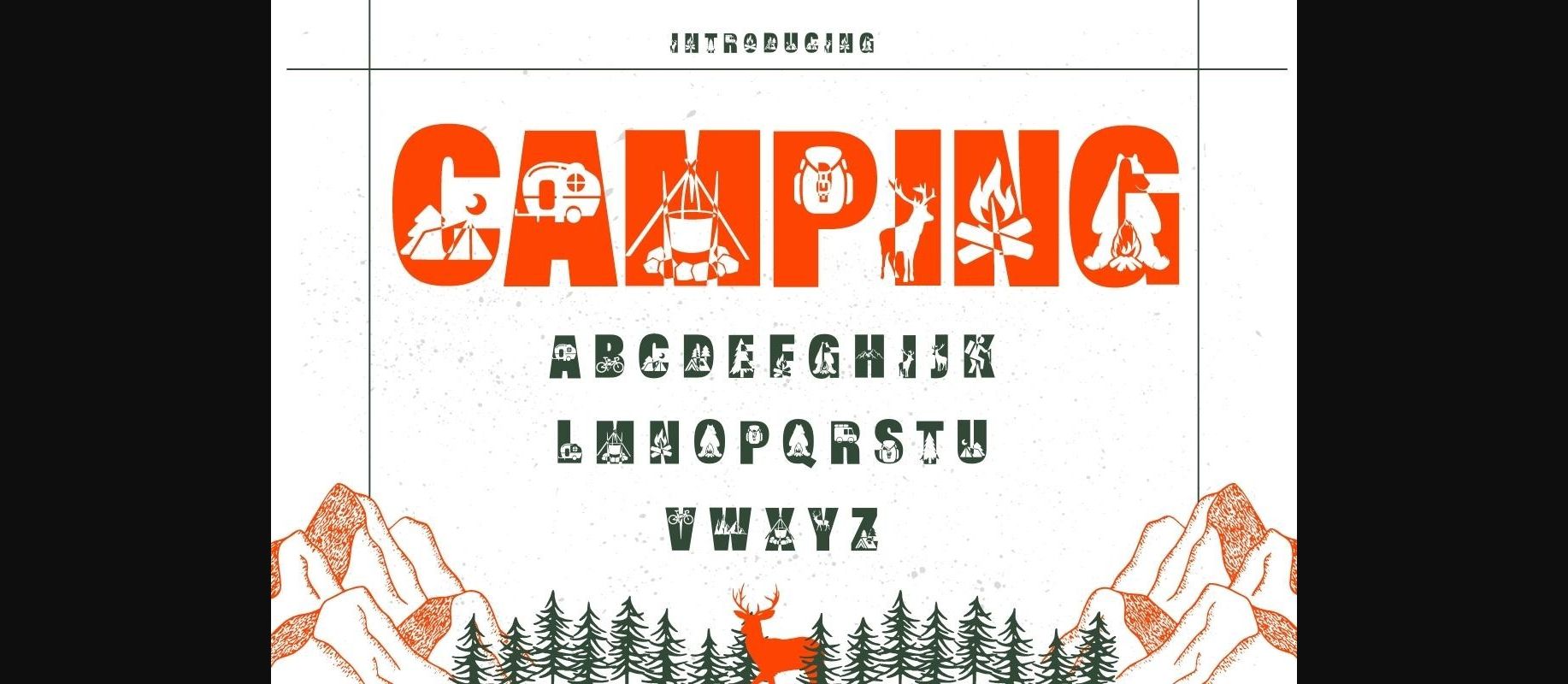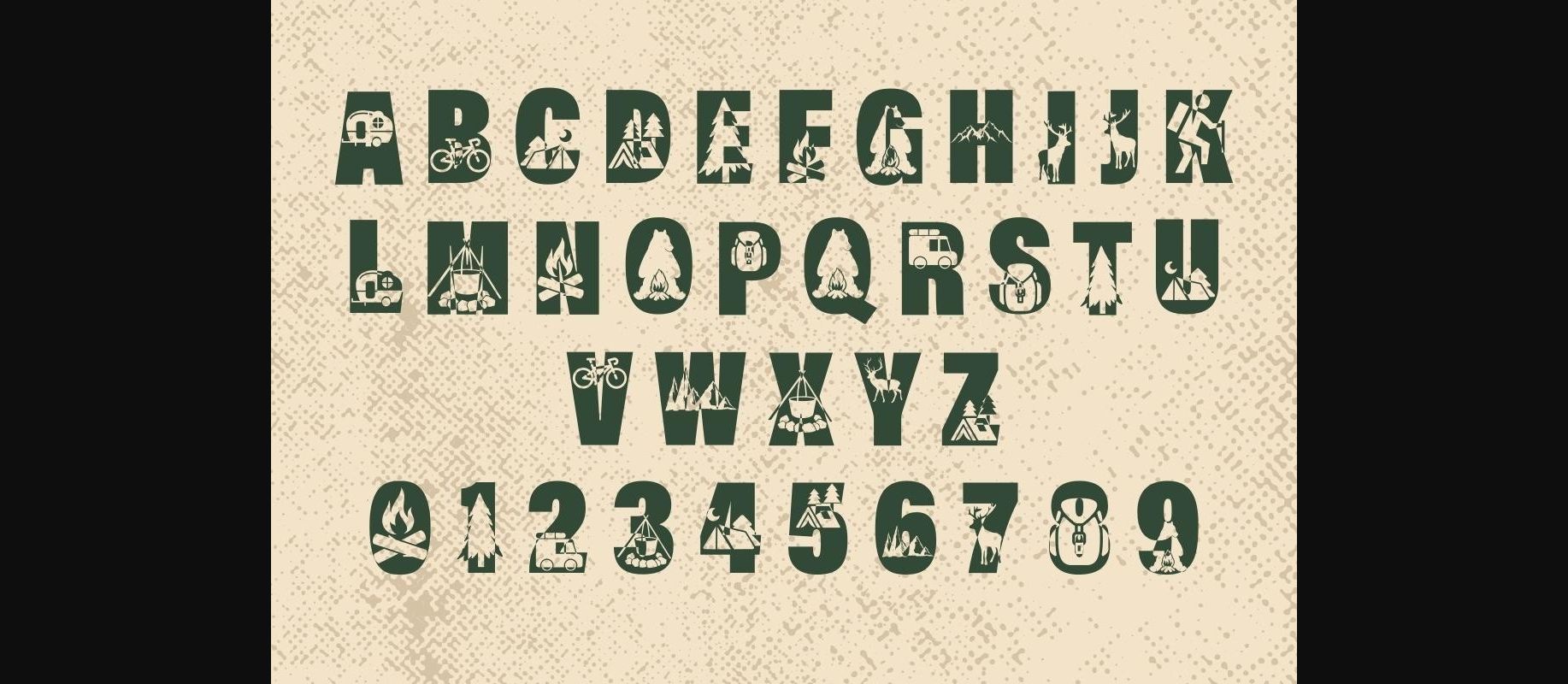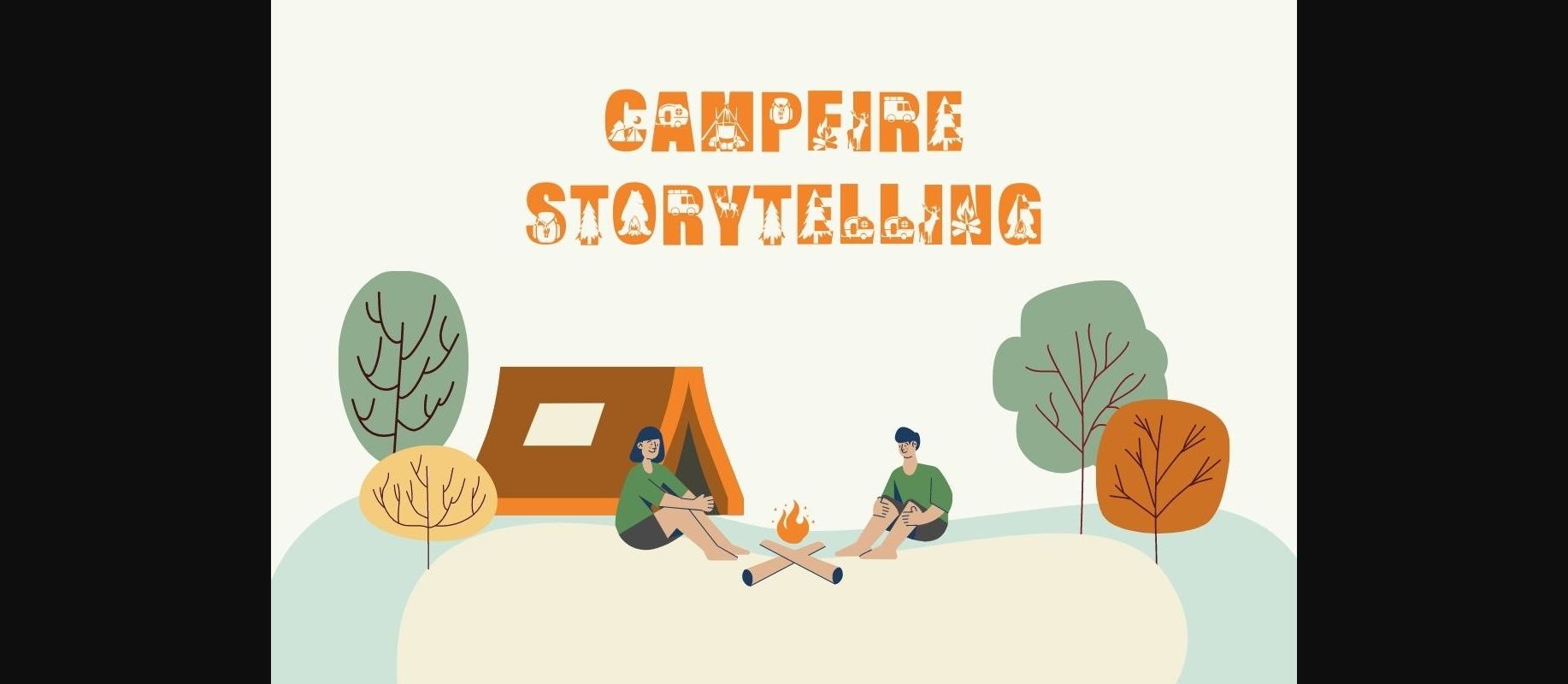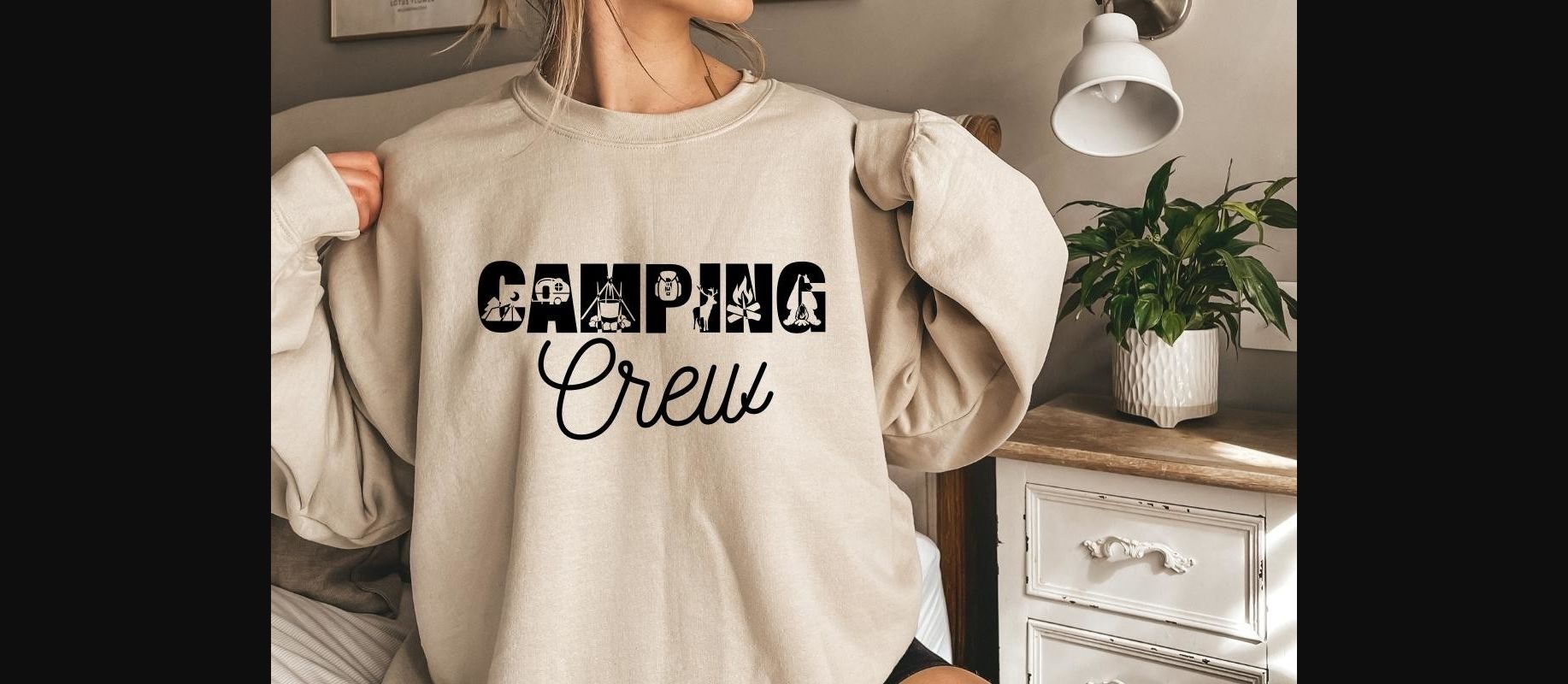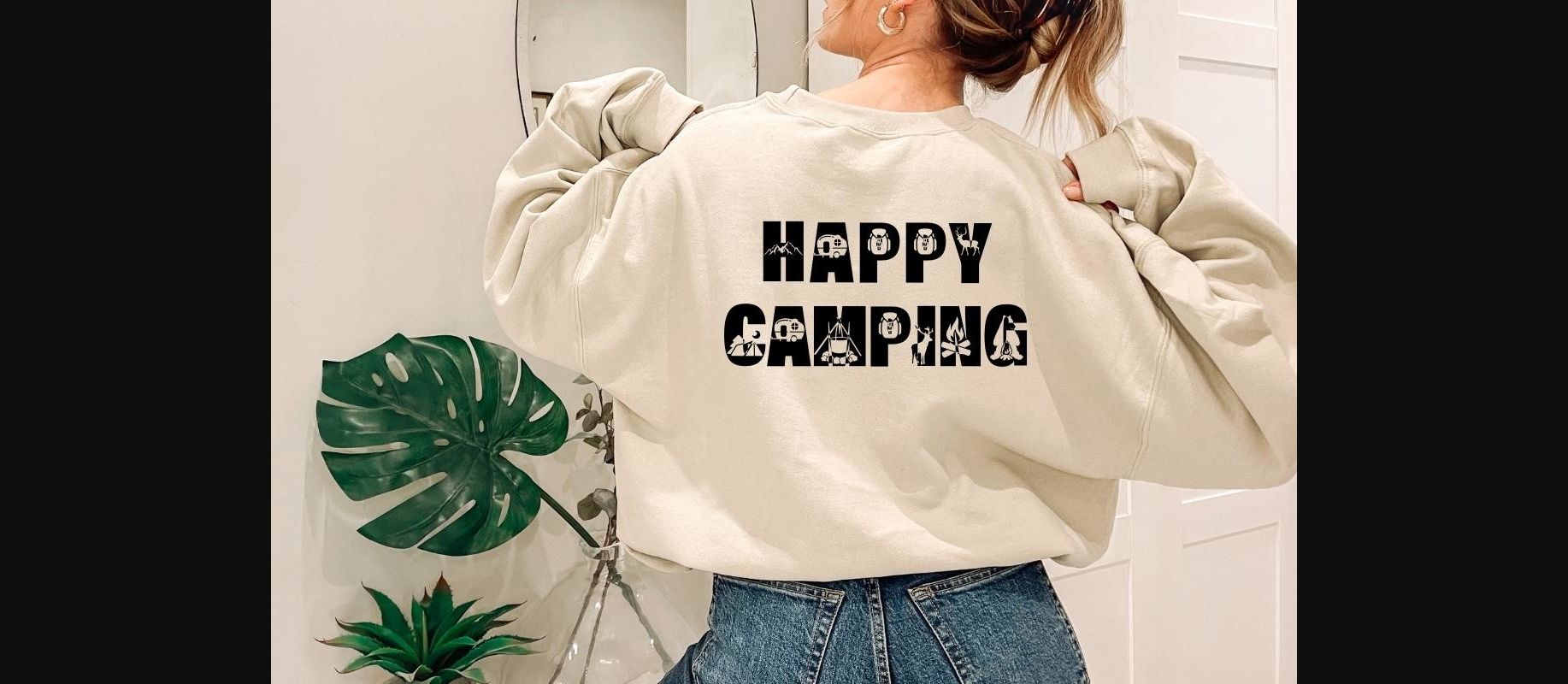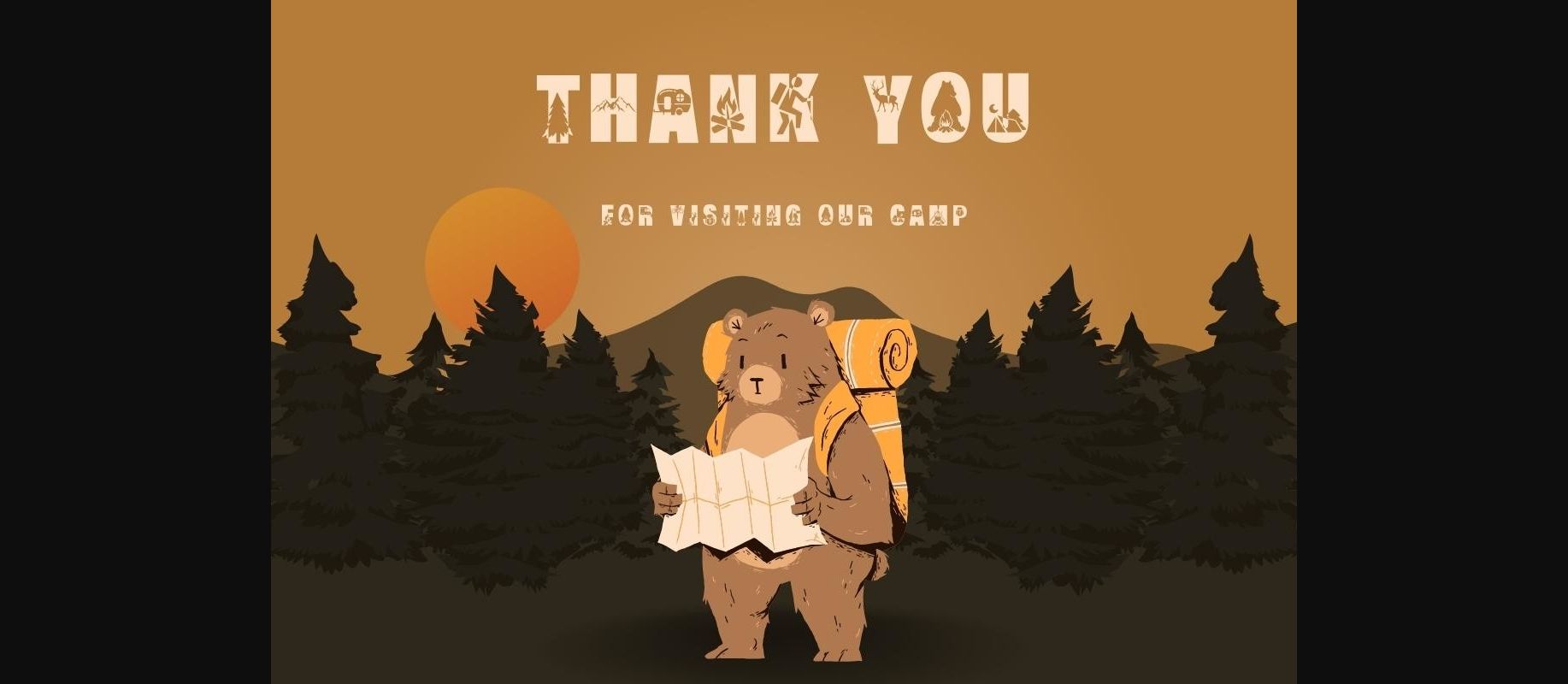
HomeDecorative FontsCamping Font Decorative Fonts Camping Font FacebookXPinterestWhatsApp 1 of 8 ... Camping Font Poster 2... Camping Font Poster 3... Camping Font Poster 4... Camping Font Poster 5... Camping Font Poster 6... Camping Font Poster 7... Camping Font Poster 8... About Camping Font Camping is a cool, incredibly cute, and assertive decorative font. Add it to each of your party invitations, gathering, or pretty much any design that requires a touch of youth and joy. DOWNLOAD NOW People also explored Magic Unicorn Font Christmas Style Font Quarts Pachino Font I Am Joyful Font Celiana Font My Darling Font Sofura Font Stayling Quarters Font Martoni Font 418 0 TagsCampingCamping Font Previous articleElona Green FontNext articleElisa Green Font LEAVE A REPLY Cancel reply Comment: Please enter your comment! Name:* Please enter your name here Email:* You have entered an incorrect email address! Please enter your email address here Website: Save my name, email, and website in this browser for the next time I comment. Personal Use Free Bright Dreams Personal Use Free Read more about this font The Winter Personal Use Free Read more about this font Stigma Font Personal Use Free Read more about this font Calega Personal Use Free Read more about this font BLOG How to Install and Use Fonts on Windows, macOS, and Web Projects How to Install and Use Fonts on Windows, macOS, and Web Projects Fonts are a crucial part of design and branding. Whether you’re designing a... Fonts That Capture the Spirit of New York City Using Fonts in Digital Marketing: Tips to Strengthen Your Brand Identity Best Fonts for YouTube Videos: Make Your Thumbnails Stand Out